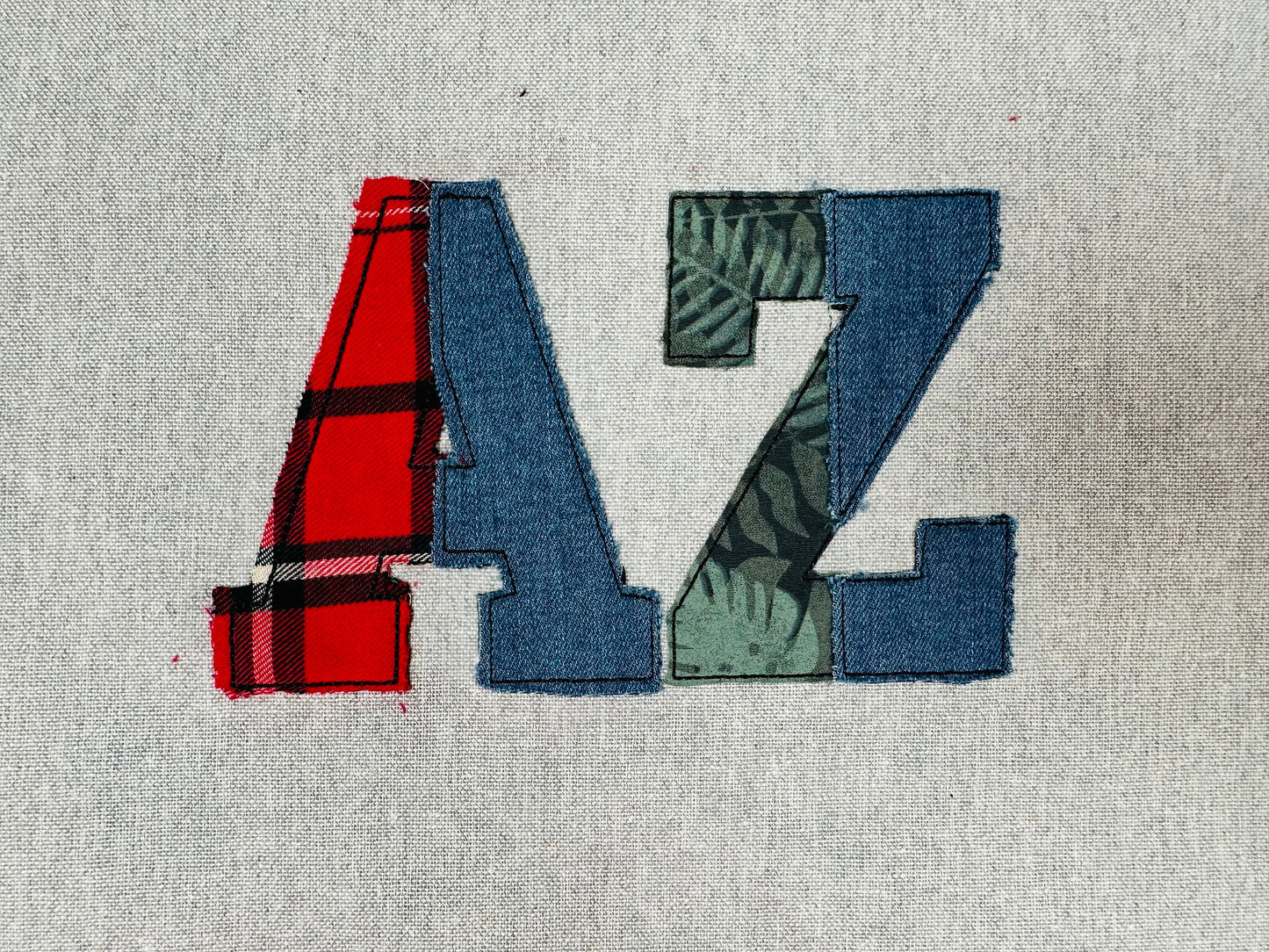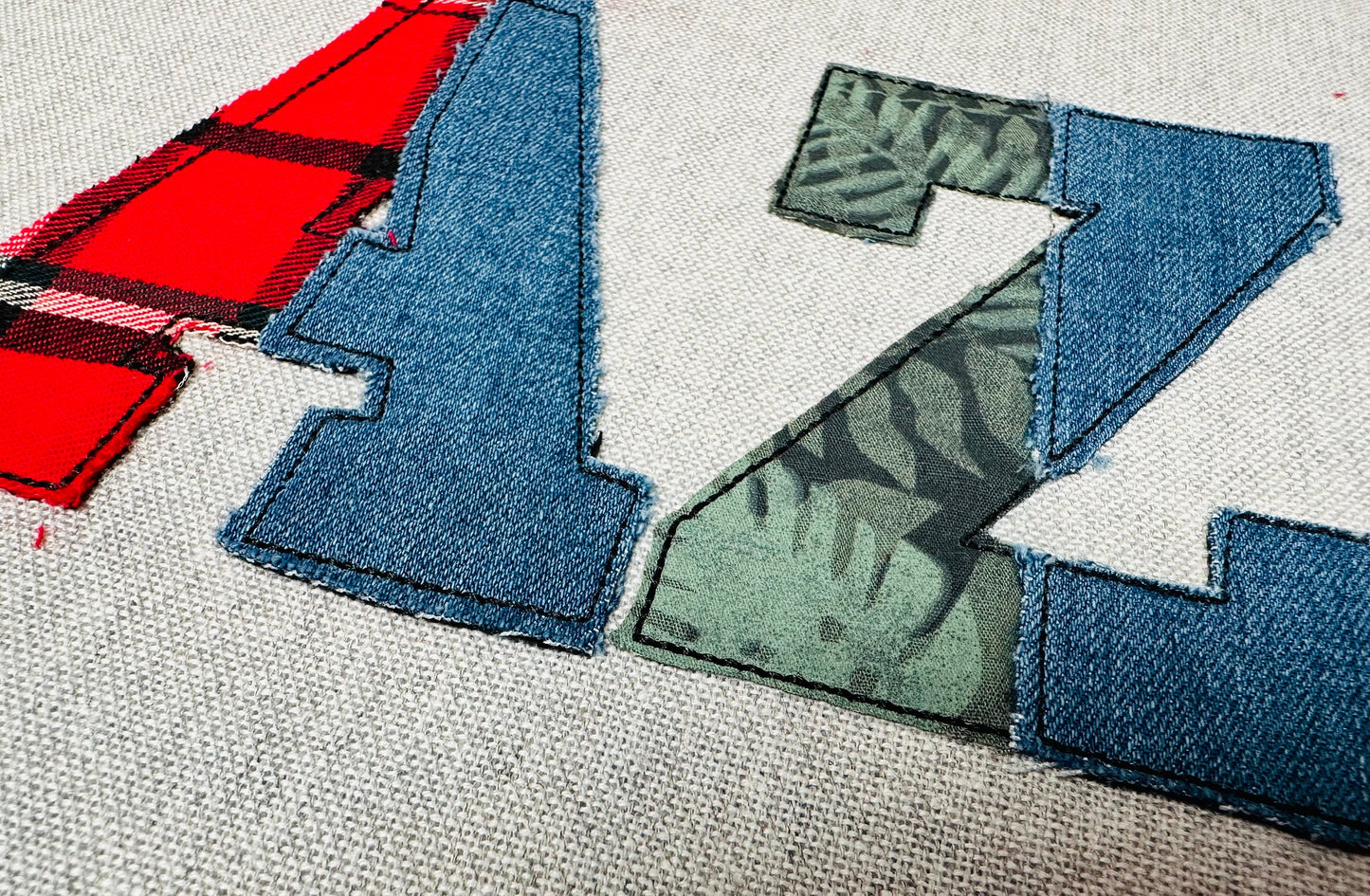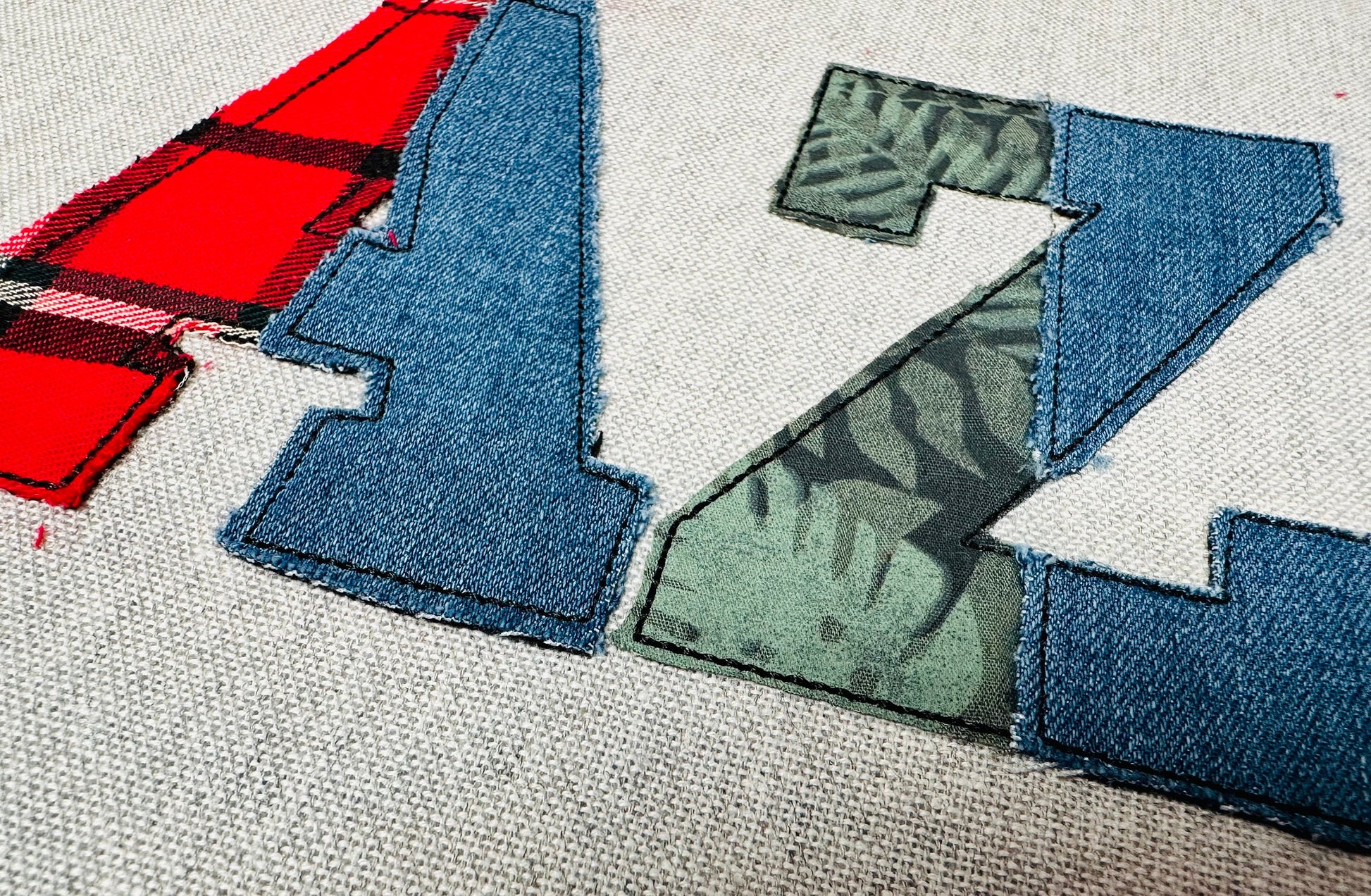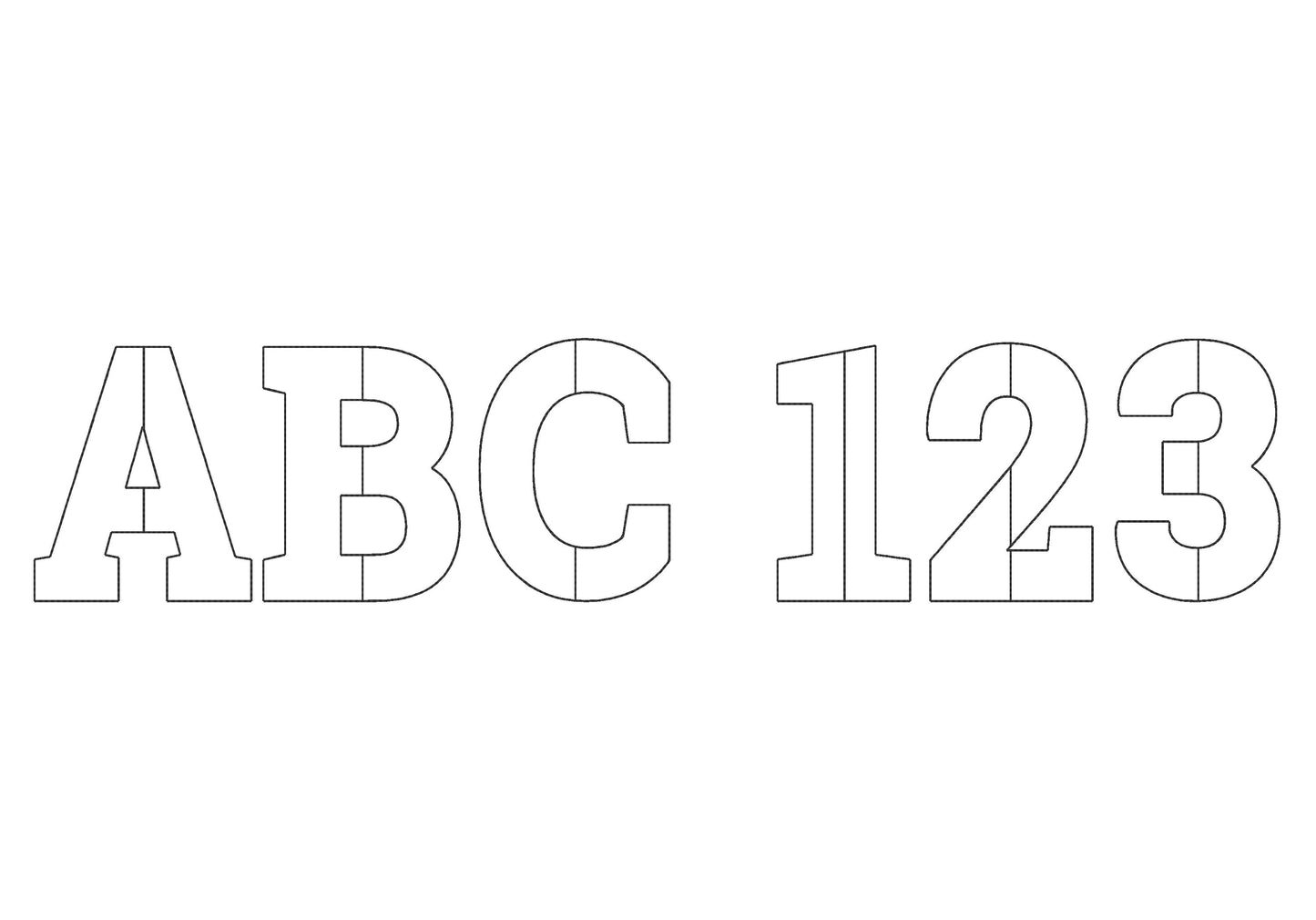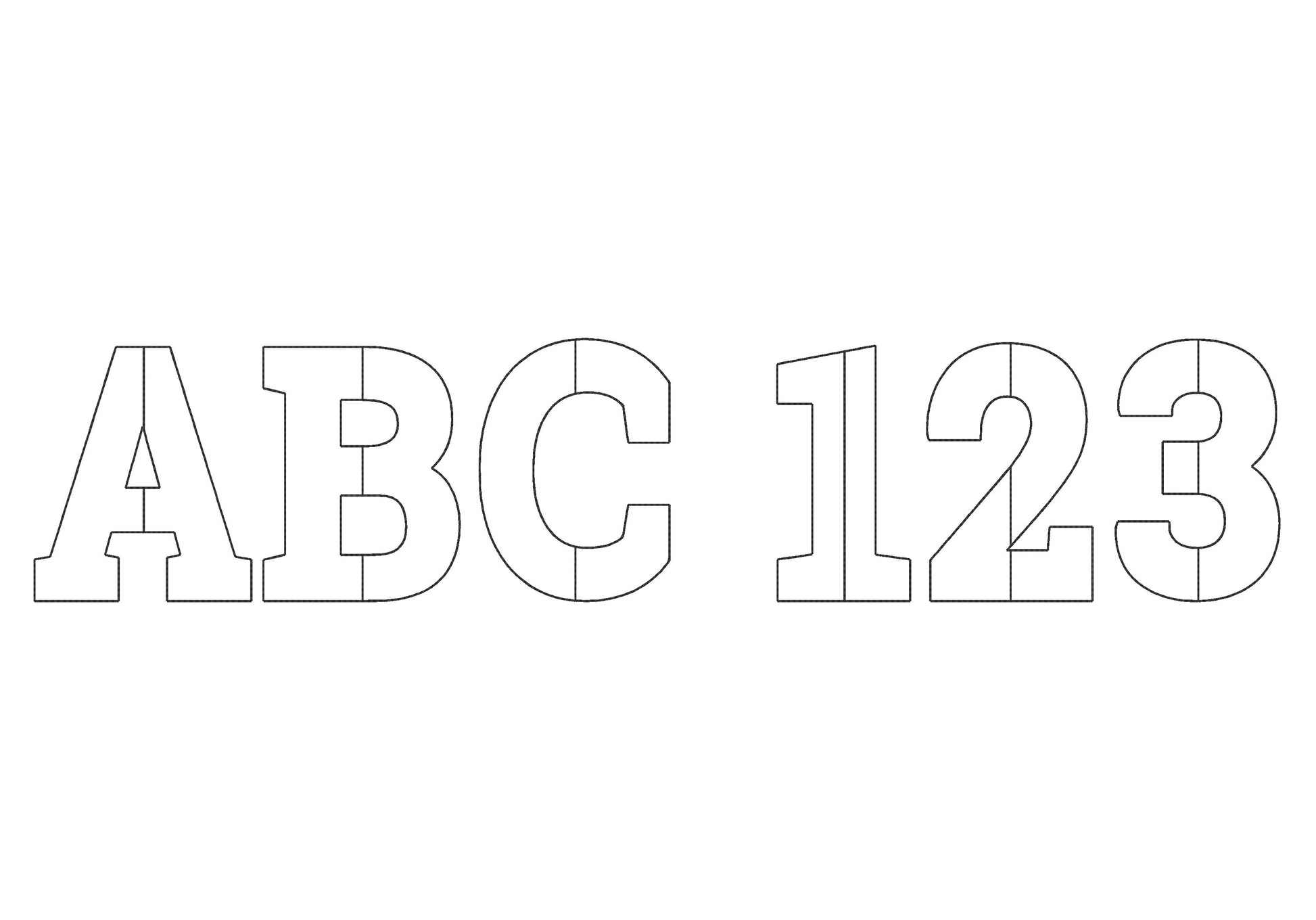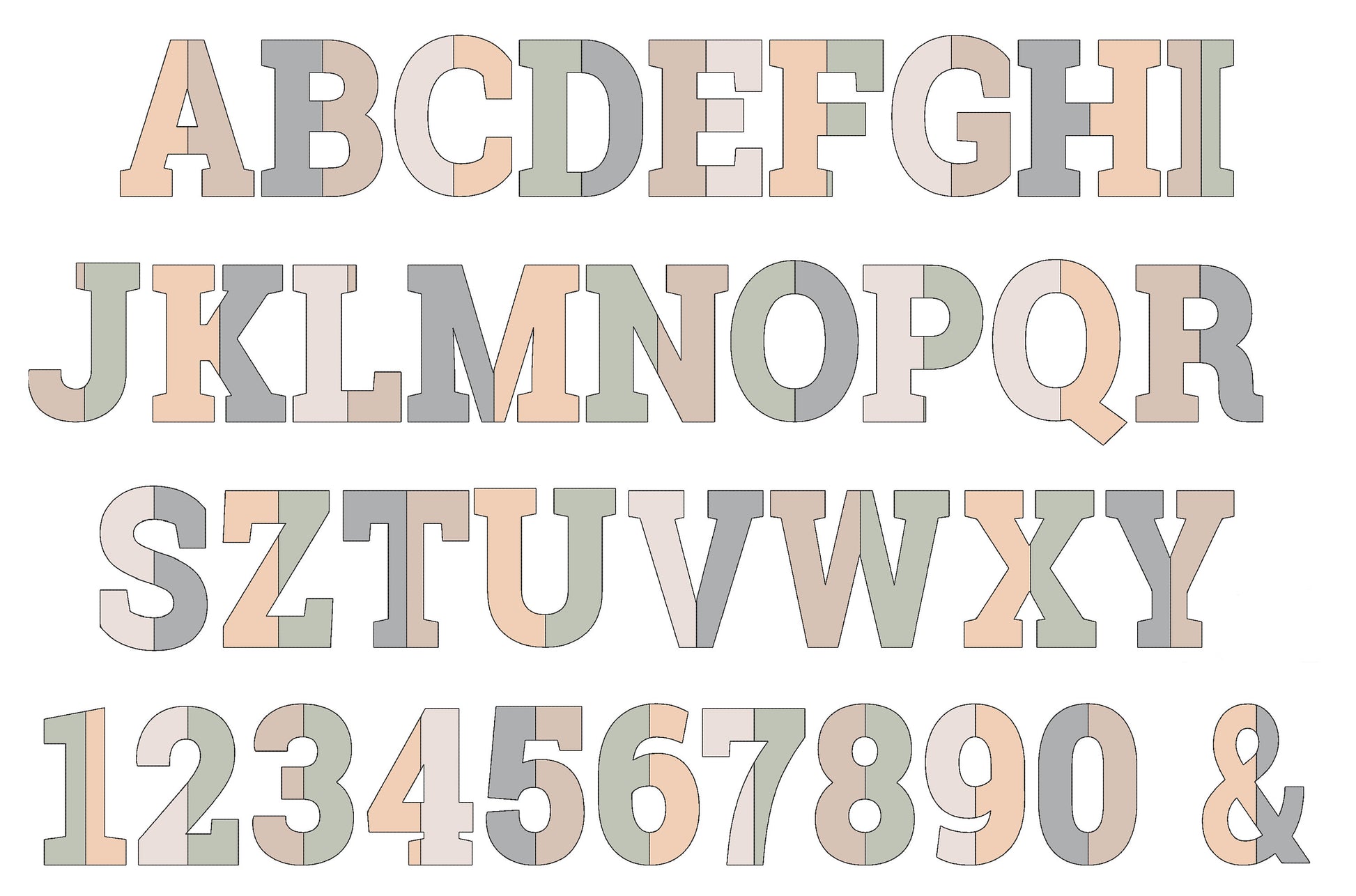
Open Edge Raggedy Applique Font
The letters come in seven sizes: 2, 2.5, 3, 3.5, 4, 5 and 6 inches. The applique edges are left open for a soft, raggedy look, held by a bean stitch outline. Includes uppercase letters A to Z, numbers 0 to 9 and an ampersand.
- Open edge raggedy applique block font
- Uppercase A to Z, numbers 0 to 9, ampersand
- 7 sizes, 2 to 6 in